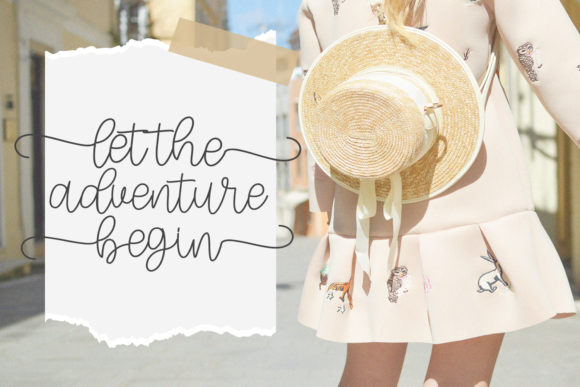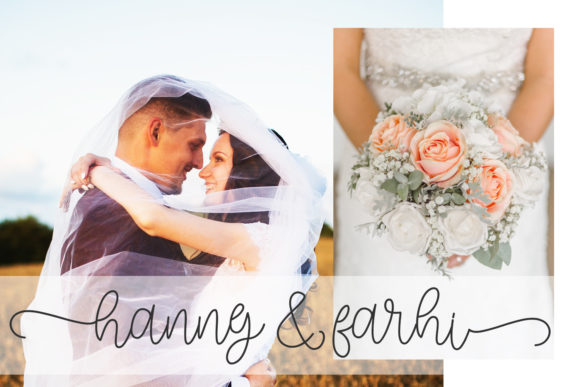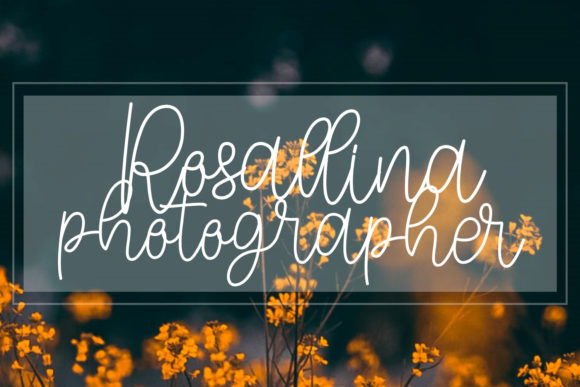
Introduction to Melly July Font
Have you ever been working on a creative project and suddenly, the perfect font pops into your mind, elevating your entire design? That’s exactly what happens when you discover the Melly July Font. This elegant, flowing handwritten font is a treasure trove for designers seeking to add a touch of sophistication to their work.
Whether you’re a seasoned designer or just starting out, the Melly July Font is a valuable resource to have in your design arsenal. Its stylish look and feel make it perfect for a wide range of projects, from branding and advertising to digital art and creative writing. And the best part? You can download it for free, making it an accessible and high-quality design resource for anyone.
With its transparent background and versatile style, the Melly July Font is sure to become a favorite among designers. So why settle for an ordinary font when you can add a dash of elegance to your designs with the Melly July Font?
Key Features of Melly July Font
- Unique, hand-drawn style with a transparent background, ideal for adding a personal touch
- Designed to be versatile and adaptable, suitable for a wide range of creative projects, from logos to typography
- Perfect for designers, artists, and writers seeking a distinctive and eye-catching font for their work
Honest Review: Melly July Font
As a designer, I’m always on the lookout for high-quality design resources to elevate my creative projects. The Melly July Font has caught my attention, and I’m excited to share my thoughts on it.
- Unique and elegant design aesthetic that adds a touch of sophistication to any project
- High-quality font that’s perfect for headings, titles, and body text
- Limited character set, which may not be suitable for extensive text-based projects
- No bold or italic font weights available, which may limit its use in certain design scenarios
Overall, the Melly July Font is a great addition to any designer’s toolkit. Its elegant design and high-quality output make it perfect for creative projects that require a touch of sophistication. While it may have some limitations, it’s a solid choice for designers looking for a free and versatile font.
How to Use Melly July Font
Tips for Getting the Most Out of Melly July Font
To get the most out of the Melly July Font, use it in conjunction with other high-quality design resources, such as graphics and illustrations. Experiment with different font sizes, colors, and combinations to create unique and eye-catching designs.
The Melly July Font is ideal for creative projects, such as logo design, branding, and marketing materials. Its high-quality design and transparent background feature make it perfect for use in various design applications, including social media graphics, presentations, and documents.